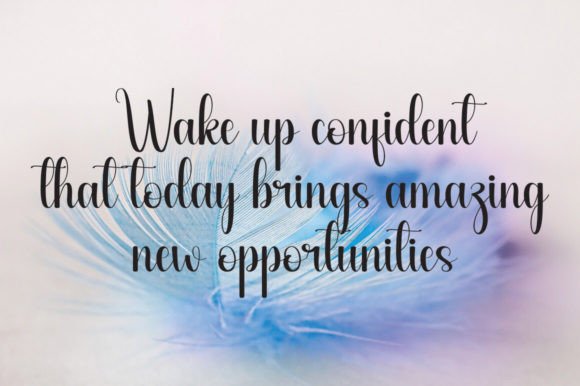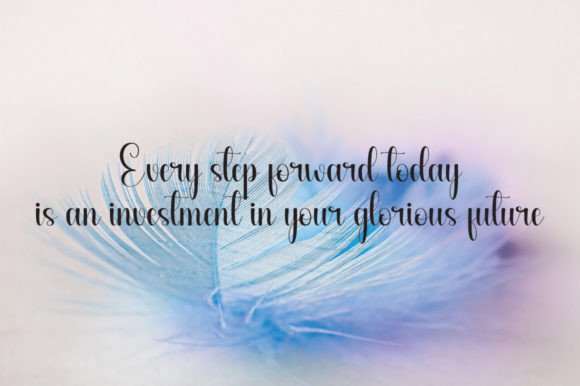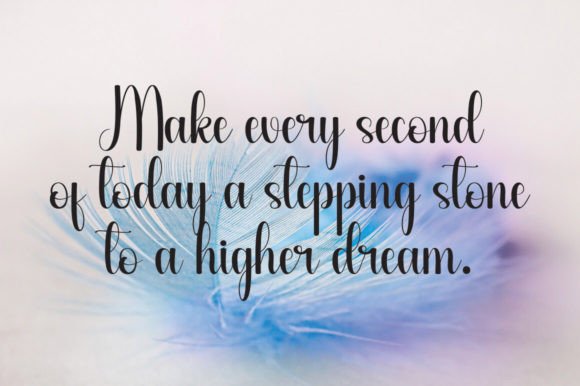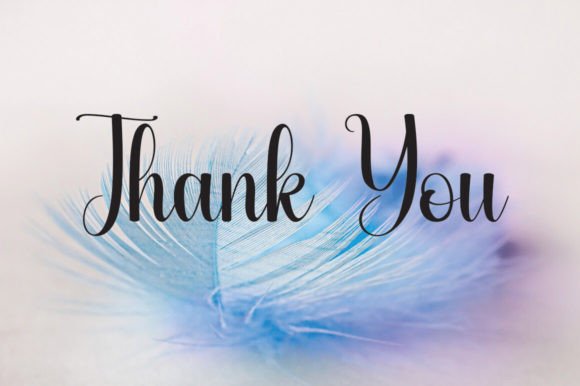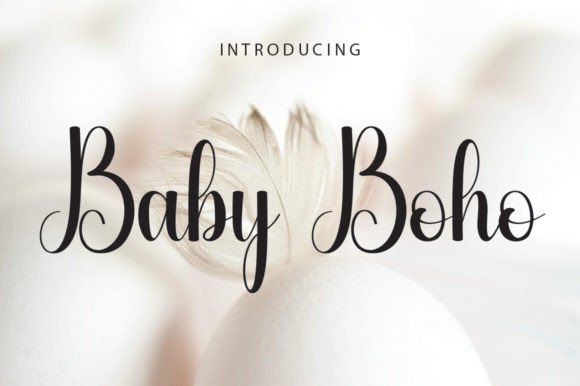
Baby Boho Font: The Ultimate Choice for Designers and Crafters
Are you a designer or crafter looking for a font that can add a touch of elegance and playfulness to your projects? Look no further than the Baby Boho font, an adorably fluid, cursive handwritten font that is sure to capture the hearts of your audience. With its delightful style and heartwarming appeal, Baby Boho is the perfect ingredient to beautifully transform a multitude of design projects.
The Charm of Baby Boho
Baby Boho is more than just a font – it’s an experience. Imbued with a joyous vibe and a nostalgic romantic charm, this font nurtures every project it touches, creating an ambiance that speaks to the soul. Its fluid, cursive strokes evoke a sense of gentleness and delicacy, making it perfect for designers and crafters who want to create a sense of tranquillity and whimsical artistry in their work.
Whether you’re working on a branding project, a craft design, or a digital product, Baby Boho is the perfect choice. Its versatility and charm make it suitable for a wide range of applications, including:
• Logos and branding materials
• Invitations and greeting cards
• Digital products, such as printables and planners
• Craft designs, such as SVG files and iron-on transfers
• Web design and social media graphics
What Sets Baby Boho Apart
So, what makes Baby Boho stand out from other fonts? Here are a few key features that make it a unique and valuable addition to your design toolkit:
• Fluid, cursive strokes: Baby Boho’s fluid, cursive strokes give it a sense of movement and elegance, making it perfect for creating beautiful, eye-catching designs.
• Joyous vibe: Baby Boho is imbued with a joyous vibe that is sure to bring a smile to your audience’s faces.
• Nostalgic romantic charm: This font has a nostalgic romantic charm that is perfect for creating designs that evoke a sense of warmth and sentimentality.
• Seamless blend of sophistication and playfulness: Baby Boho seamlessly blends sophistication and playfulness, making it perfect for designers and crafters who want to create designs that are both elegant and fun.
Tips for Using Baby Boho in Your Designs
Here are a few tips for using Baby Boho in your designs:
• Use it as a headline font: Baby Boho is perfect for use as a headline font, where its fluid, cursive strokes can really shine.
• Pair it with a sans-serif font: For body text, consider pairing Baby Boho with a sans-serif font to create a beautiful contrast between the two.
• Experiment with different colors: Baby Boho looks beautiful in a variety of colors, so don’t be afraid to experiment and find the perfect hue for your design.
• Use it to add a personal touch: Baby Boho is perfect for adding a personal touch to your designs, whether you’re creating a custom logo or a handmade craft.
In conclusion, Baby Boho is a beautiful, versatile font that is perfect for designers and crafters who want to add a touch of elegance and playfulness to their projects. With its fluid, cursive strokes and joyous vibe, Baby Boho is sure to capture the hearts of your audience and bring a sense of tranquillity and whimsical artistry to your designs. So why wait? Download Baby Boho today and start creating beautiful designs that speak to the soul!